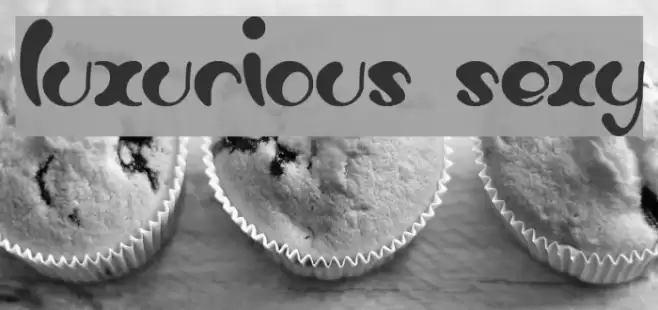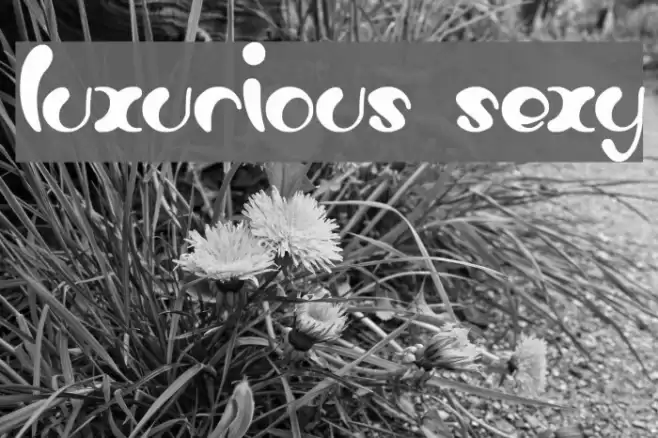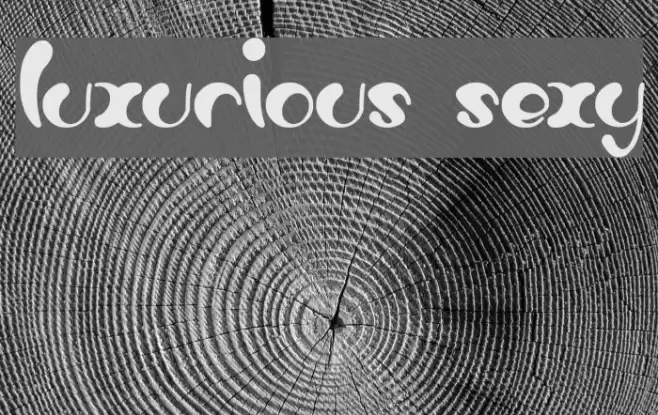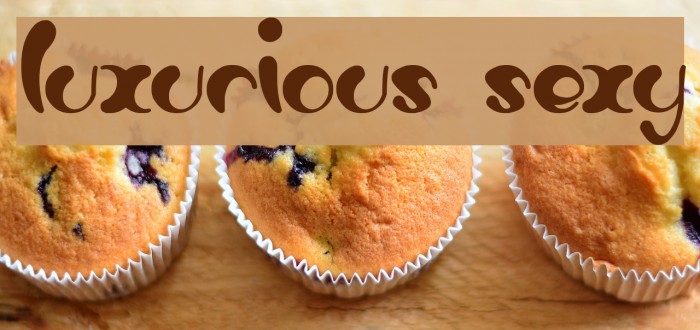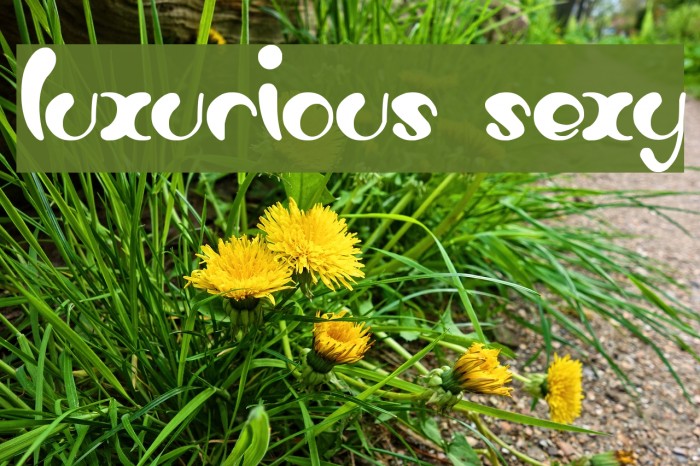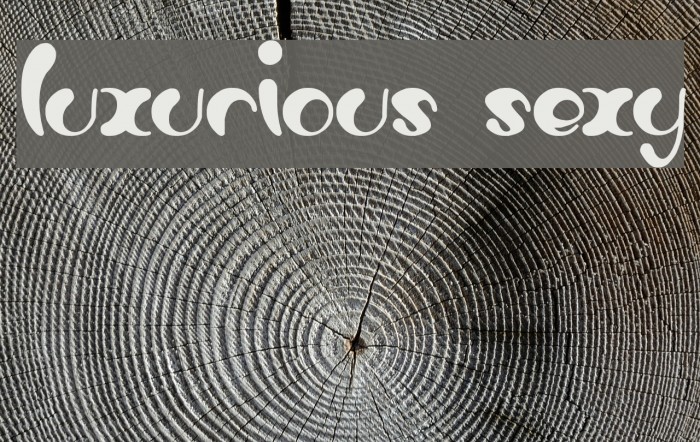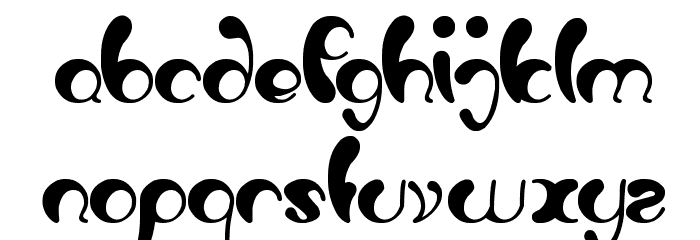
luxurious sexy Font
luxurious sexy Description
This font features a unique and playful design with a whimsical flair. The characters are bold and rounded, with exaggerated curves and loops that give it a lively and dynamic appearance. The lowercase letters exhibit a consistent flow, while the uppercase letters maintain a sense of balance and harmony. The overall style is both modern and decorative, making it suitable for creative and artistic projects. The font's distinctive character shapes and fluid lines make it stand out, adding a touch of elegance and sophistication to any design.
A playful and whimsical font with bold, rounded characters and exaggerated curves from Uncategorized fonts.
- Proposed Projects: Ideal for branding, logos, invitations, and creative design projects that require a touch of elegance and playfulness.
- Overall Style: Modern, Decorative
- Use Case: Logos, Invitations, Creative Design